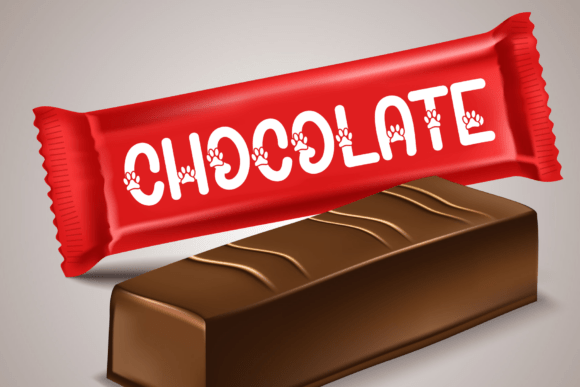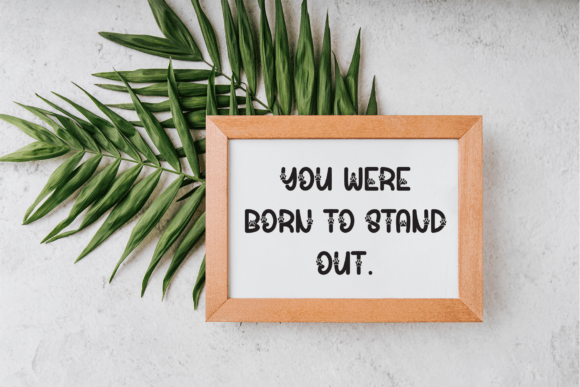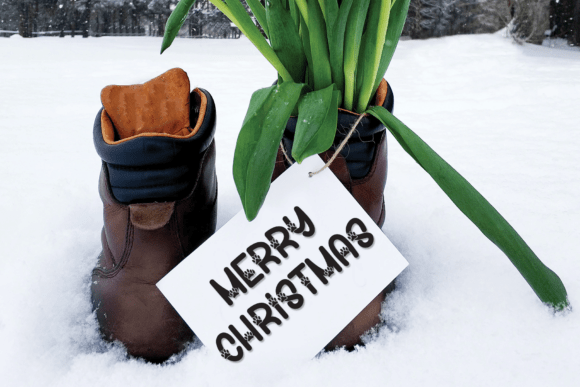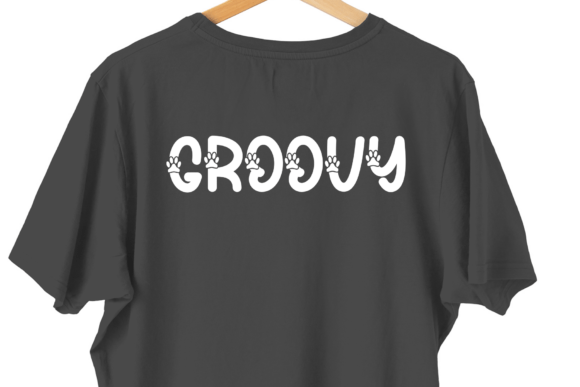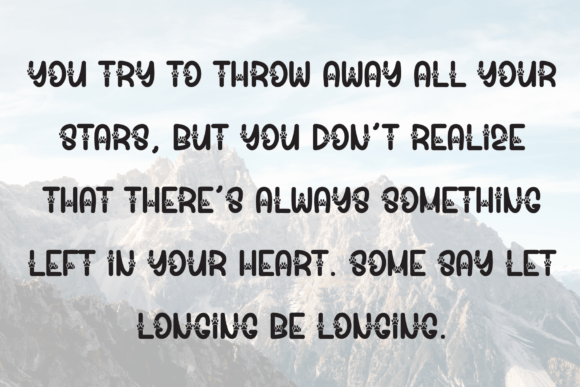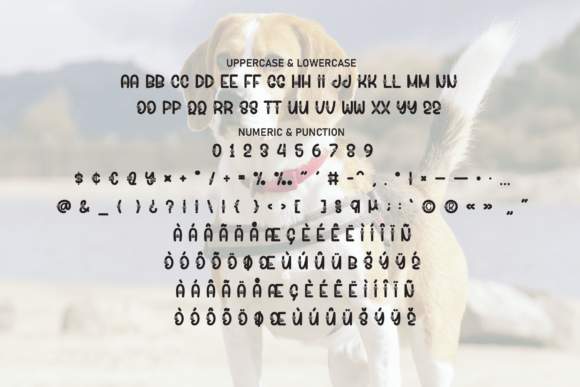
Unleash Your Creativity with the Beagle Font
Have you ever been stuck trying to find the perfect font for your latest design project, only to end up scrolling through page after page of generic options? We’ve all been there. But what if you could add a touch of whimsy and personality to your work with just a few clicks?
Introducing the Beagle Font, a special creative product designed to give you an extraordinary experience. With its latest style letters, you can elevate your wall displays, wedding invitations, social media posts, and more. As a designer, you know how valuable it is to have access to high-quality fonts that can take your projects to the next level.
Beagle Font Key Features
- Font Family: Beagle Font is a sans-serif font family, available in multiple weights and styles.
- Unique Characteristics: Beagle Font features a distinctive rounded edge and subtle curves, making it highly legible and visually appealing.
- Font Weight and Style Options: Beagle Font includes a range of weights (Thin, Light, Regular, Medium, Bold, and Black) and styles (Italic, Oblique, and Condensed), offering flexibility for various design applications.
Designer Review: Beagle Font
Overall, I think Beagle Font has some great qualities, but it also has some areas that need improvement. ✨
- The Beagle Font has a cute and playful vibe, perfect for children’s books or pet-related projects.
- The font is highly customizable, allowing users to adjust the size, color, and spacing to fit their design needs.
On the other hand, there are some limitations that might make it less appealing to some designers. ⚠️
- The font’s cutesy style might not be suitable for more serious or professional projects.
- The font lacks a clear distinction between uppercase and lowercase letters, which can make it difficult to read in certain contexts.
Overall, I think Beagle Font is a fun and playful option, but it’s not suitable for every project. With some careful consideration and customization, it can be a great addition to a designer’s toolkit.
Tips for Getting the Most Out of the Beagle Font
The Beagle Font is a versatile and playful font that can be used for a variety of purposes, including:
- Designing children’s book covers and illustrations.
- Creating social media graphics and ads.
- Designing greeting cards and invitations.
Alternatives to Beagle Font for Designers
Oswald is a sans-serif font designed by Vernon Adams. It is a versatile and highly legible font suitable for various design projects, including body text, headings, and titles. Oswald is a great alternative to Beagle Font as it offers a similar modern and sleek aesthetic, but with a more neutral tone.
Comparison: Oswald Font is more neutral and lacks the playful, rustic feel of Beagle Font. It is ideal for designs that require a clean and professional look.
Lato is a sans-serif font designed by Łukasz Dziedzic. It is a highly readable and modern font suitable for body text, headings, and titles. Lato is a great alternative to Beagle Font as it offers a similar sleek and modern aesthetic, but with a more sophisticated tone.
Comparison: Lato Font is more refined and lacks the playful, rustic feel of Beagle Font. It is ideal for designs that require a sophisticated and elegant look.